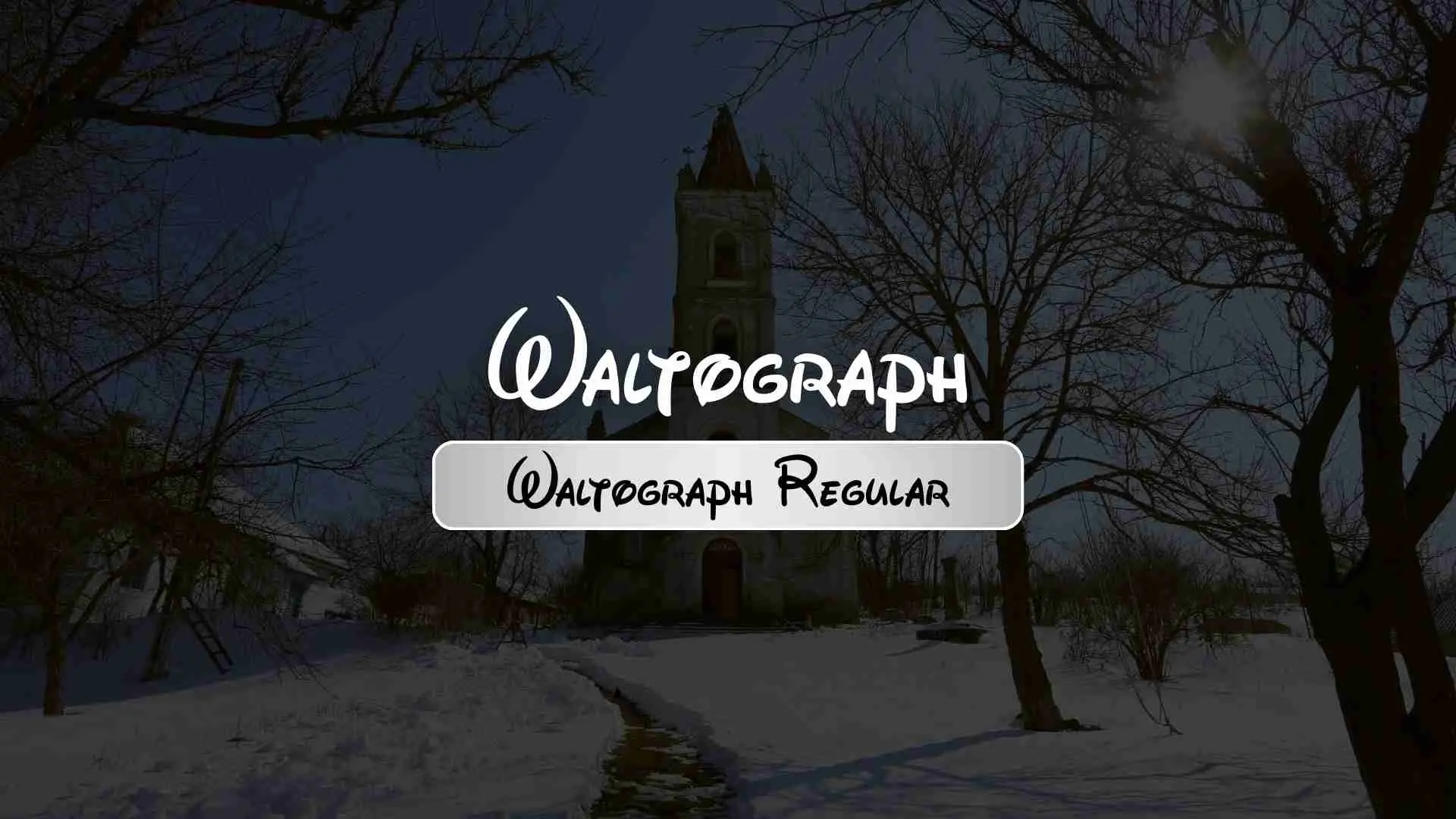
The font Waltograph Regular, designed by Mickey Avenue, falls under the Display, Script category & Waltograph font family. Its smooth, flowing letterforms make it a versatile choice for projects that require both elegance and readability. Waltograph is particularly well-suited for Logo, Headlines, Creative and Fun Branding, Invitations and Stationery and Wedding and Event Invitations. With its balance of simplicity and decorative appeal, this font brings a polished touch to both personal and professional designs.